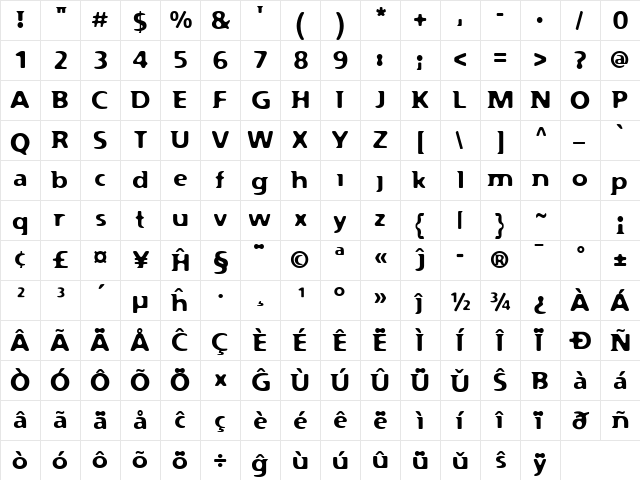
Flexure Eo Regular
Design Context for Flexure Eo Typeface
Flexure Eo takes a measured approach to typography — its balanced proportions and neutral character make it a reliable workhorse for both digital and print work.